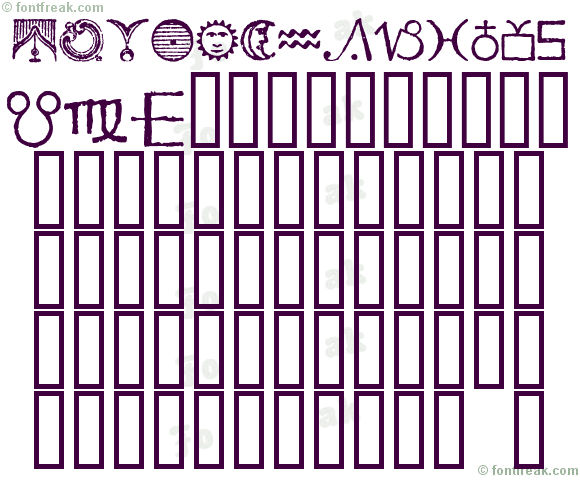
Essene Dingbats
About Essene Dingbats
Essene Dingbats, designed by Harold Lohner, is a distinctive dingbat font that offers a unique collection of decorative symbols. Released as freeware, this font is adapted from a small text called "Ecce Orienti," published in 1894 by a quasi-Masonic order. The visual characteristics of Essene Dingbats are defined by its clean lines and geometric shapes, providing a balanced stroke weight that is both bold and approachable. The spacing between symbols is well-considered, enhancing readability while maintaining an attractive visual flow.
This font is ideal for a variety of creative applications. It shines in wedding invitations, where its ornamental symbols can beautifully complement romantic themes. Additionally, it can elevate movie posters by adding an artistic flair that captures viewers' attention. Restaurant menus can benefit from the playful yet elegant designs of Essene Dingbats, making the dining experience feel more unique. Graphic designers and content creators will find it especially useful for projects that require a touch of whimsy or thematic symbolism.
Targeted towards graphic designers, small business owners, and anyone involved in creative projects, Essene Dingbats serves as an excellent resource for enhancing visual communication. Its unique character set allows users to express ideas in a visually engaging manner, making it perfect for those looking to add personality to their designs.
What sets the Essene Dingbats font apart is its historical background combined with modern usability. By merging a rich cultural heritage with contemporary design needs, it provides a versatile tool for creative projects. For those interested in exploring this unique font, the Essene Dingbats font free download is available, allowing you to incorporate its distinctive style into your own work effortlessly.